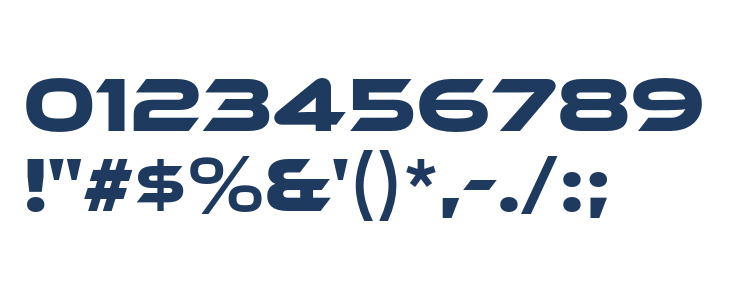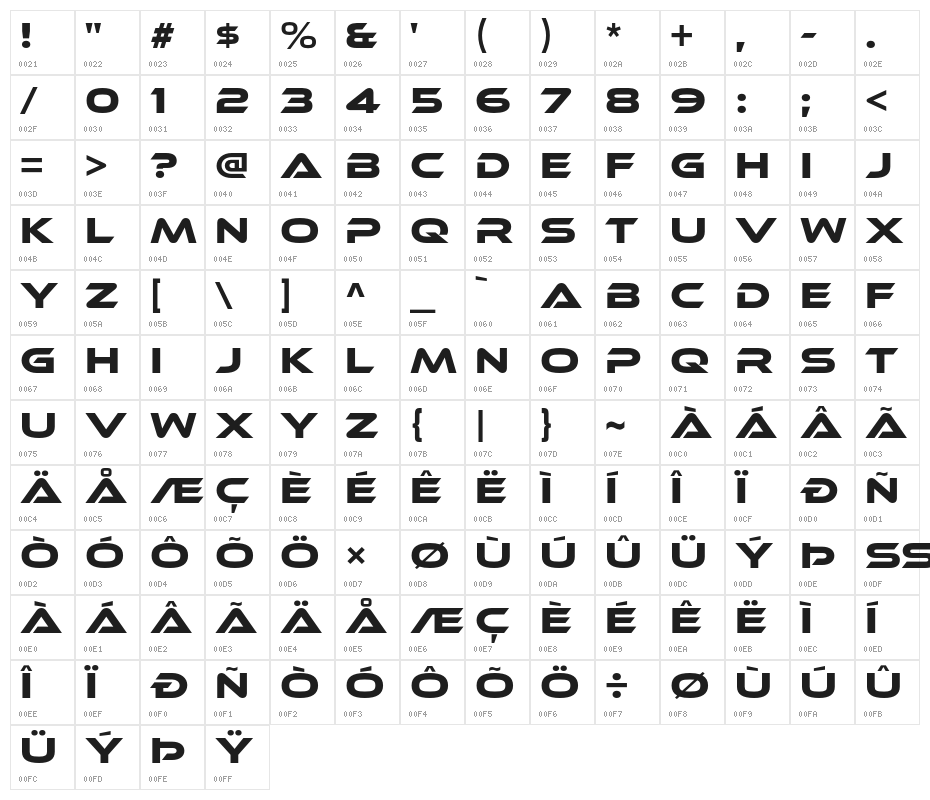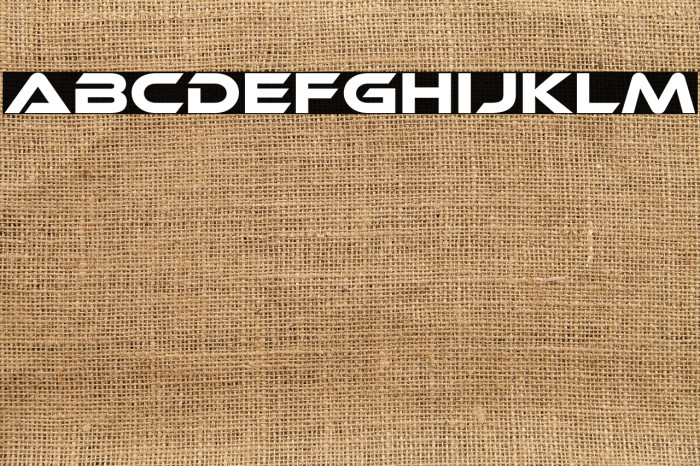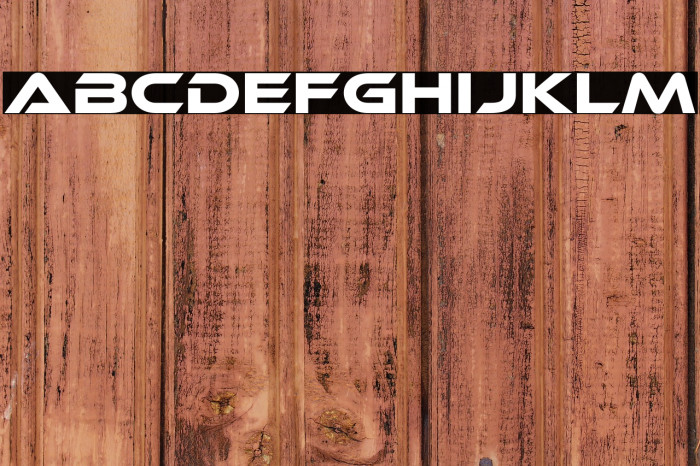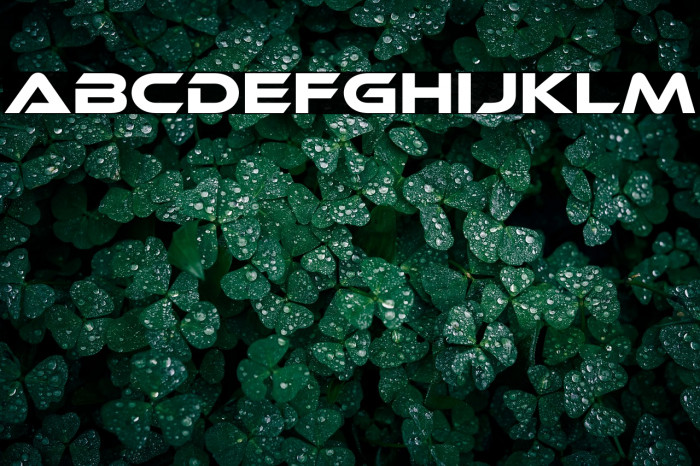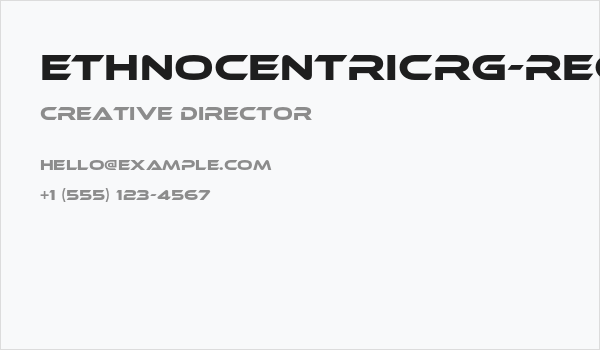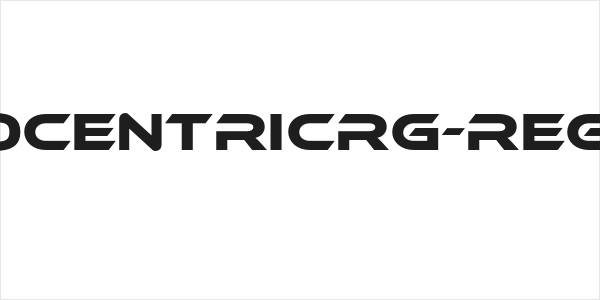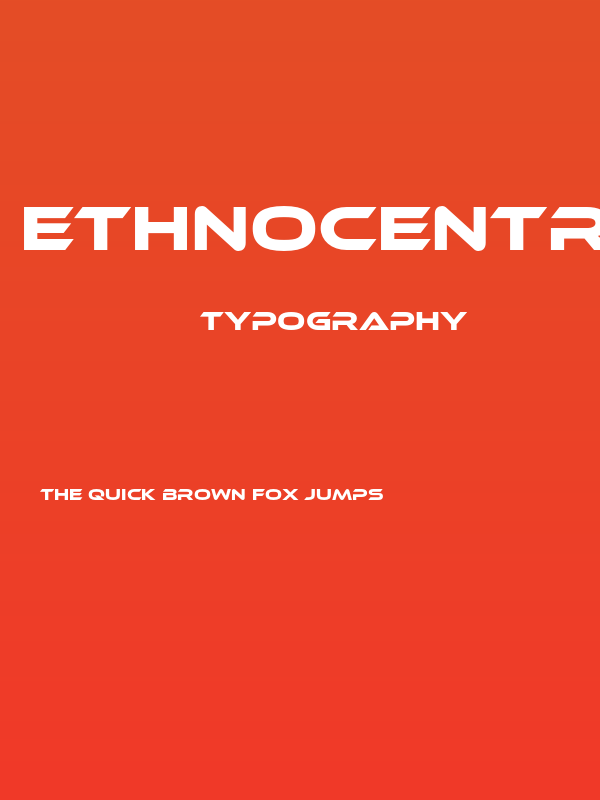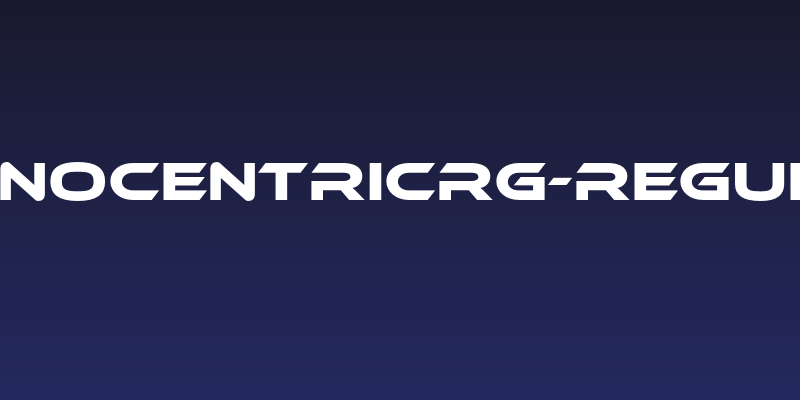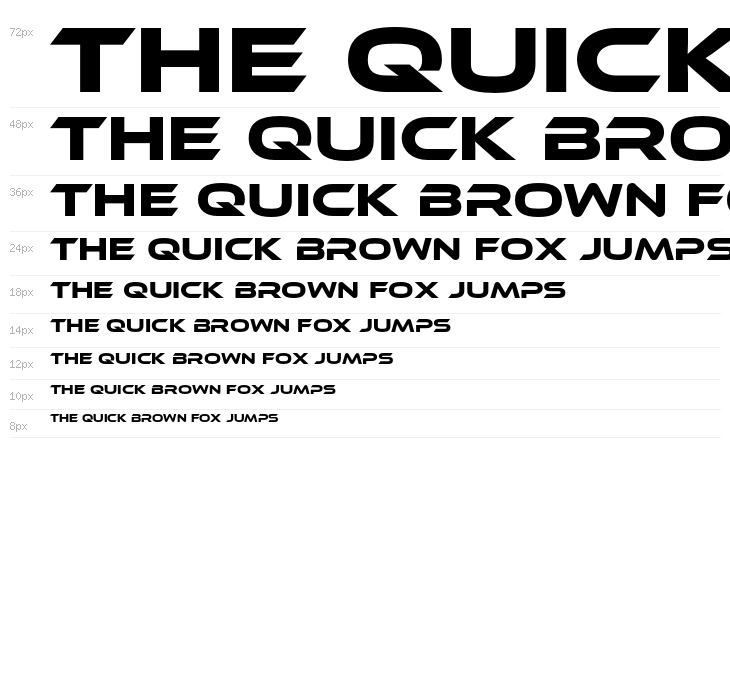
This font features a bold and futuristic design, characterized by sharp angles and a geometric structure. The uppercase letters are particularly striking, with a strong presence and a sense of movement. The lowercase letters maintain the same angular style, ensuring consistency throughout the typeface. Numbers and special characters are designed to match the overall aesthetic, making them suitable for a variety of uses. The font's unique style makes it ideal for projects that require a modern and edgy look.
| Proposed Projects | Ideal for branding, logos, headlines, and any project needing a modern, edgy aesthetic. |